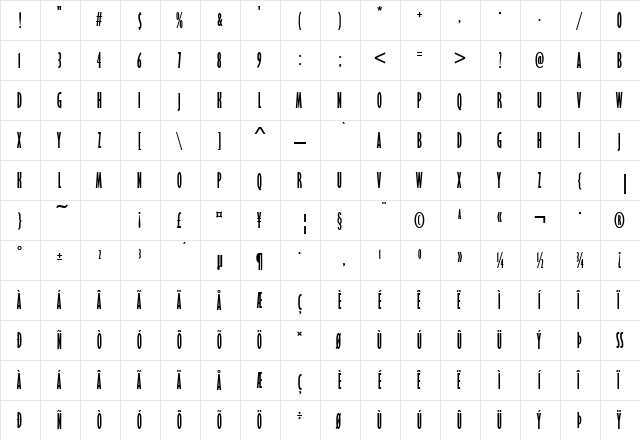
URWGalaxieNo2ComDBol Regular
Design Context for URWGalaxieNo2ComDBol Typeface
URWGalaxieNo2ComDBol takes a measured approach to typography — its balanced proportions and neutral character make it a reliable workhorse for both digital and print work.